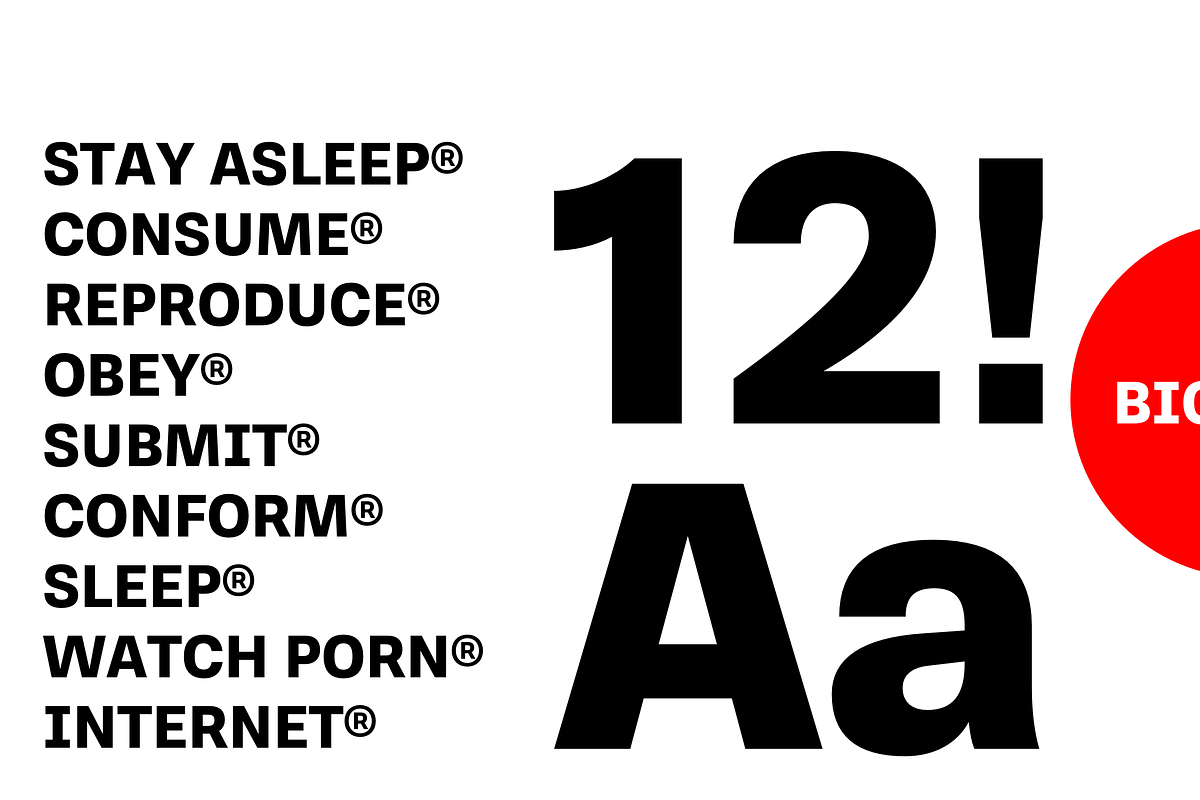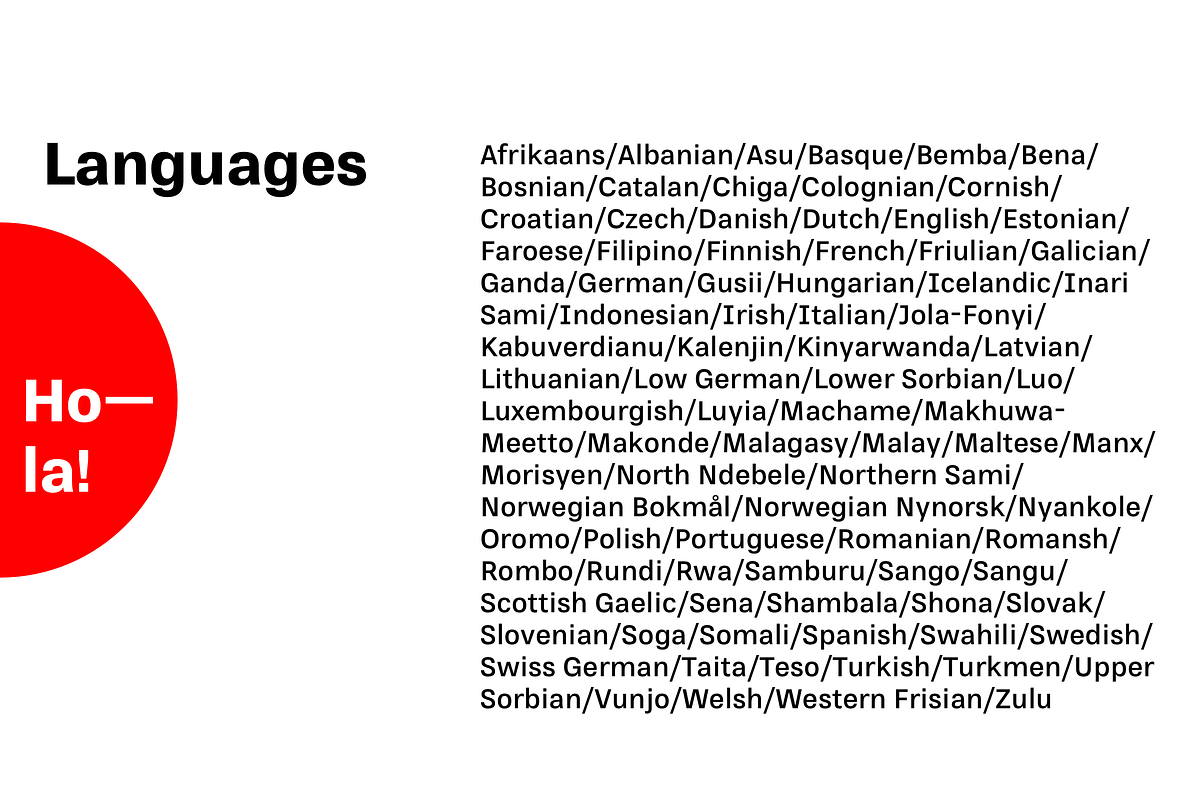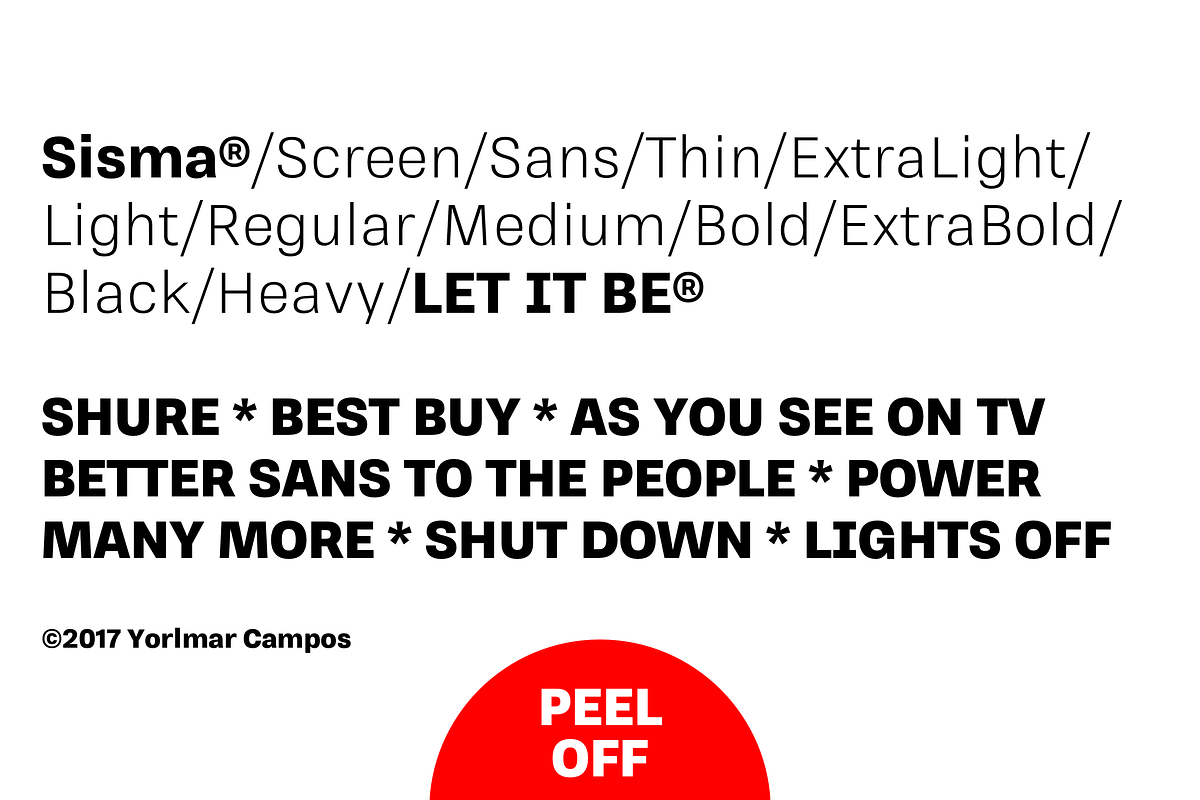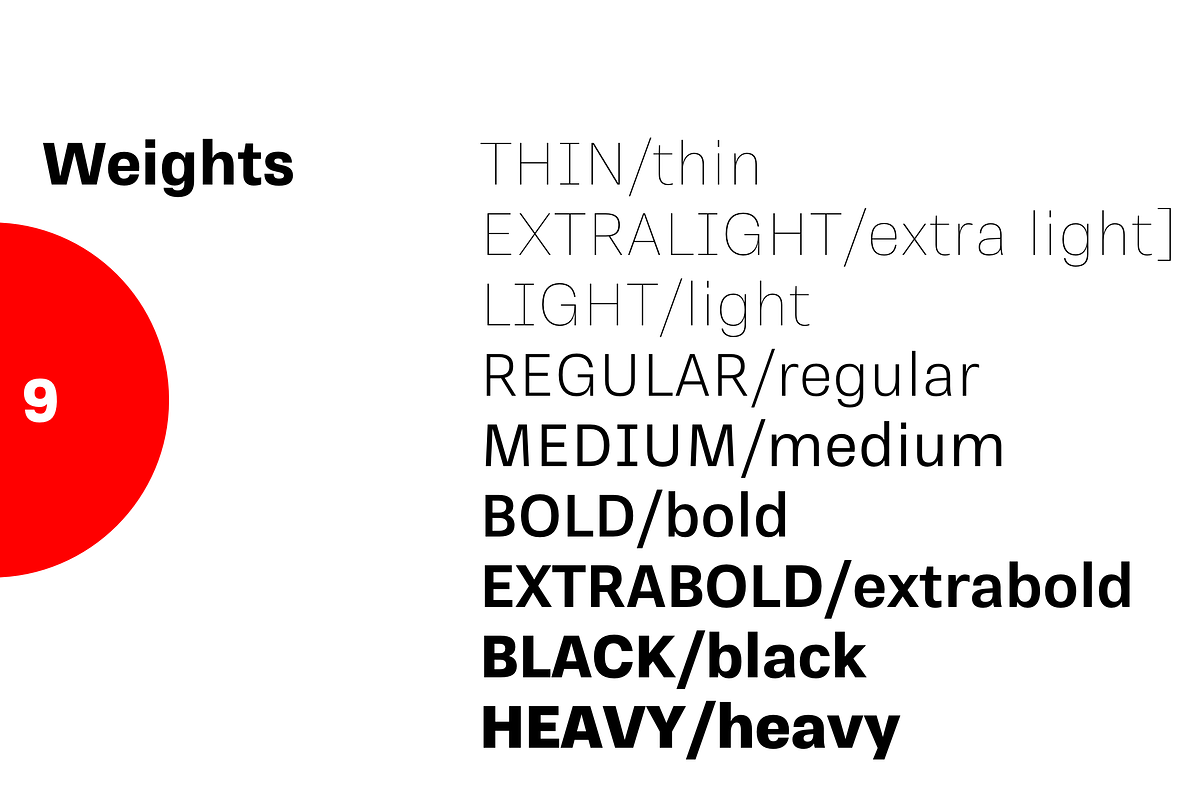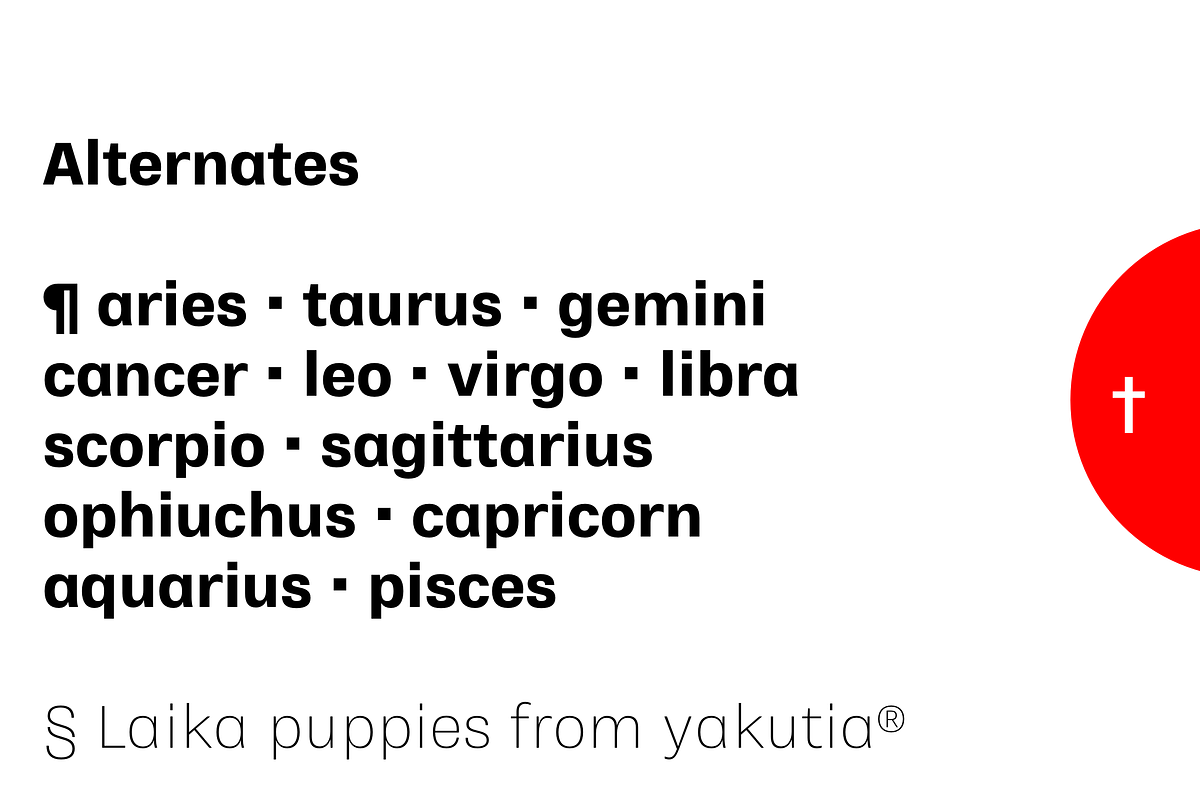
RNS Sisma
RNS Sisma is a new workhorse grotesk sans serif typeface. Comprised on nine weights and some alternates. Great for screen use.
- Comprised on nine weights and some alternates.
- RNS Sisma Thin
- RNS Sisma Extra Light
- RNS Sisma Light
- RNS Sisma Regular
- RNS Sisma Medium
- RNS Sisma Bold
- RNS Sisma ExtraBold
- RNS Sisma Heavy
- RNS Sisma Black